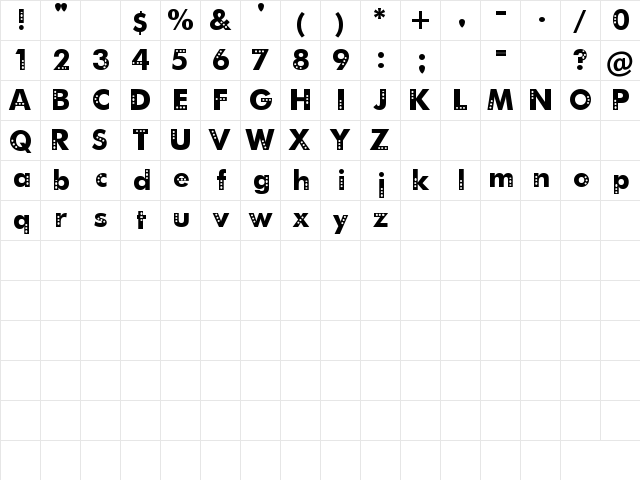
| Style | 2Peas Retro Ways |
| Foundry | High-Logic |
| Designer | High-Logic - Erwin Denissen 1999 |
Design Context for 2Peas Retro Ways Typeface
2Peas Retro Ways has the warm character of retro typography — evoking diners, record sleeves, and the golden age of print advertising.
Font Pairing: Combine 2Peas Retro Ways with a simple slab or neutral sans — period-accurate companions reinforce the vintage feel without competing for attention.
Pro Tip: Lean into 2Peas Retro Ways's period character by pairing it with aged paper textures, muted colour palettes, and vintage illustration styles.